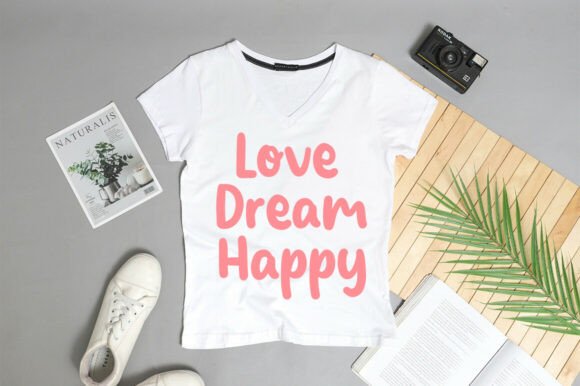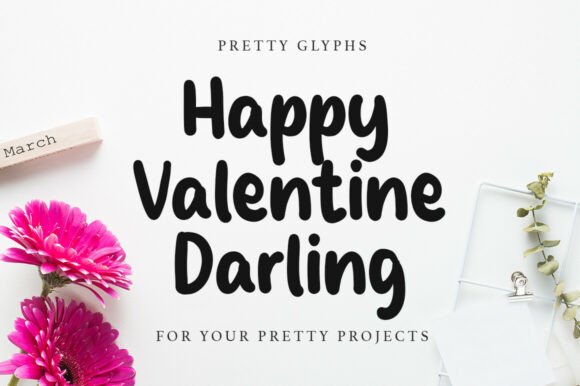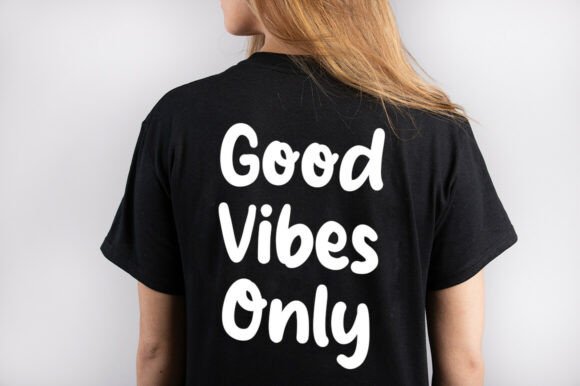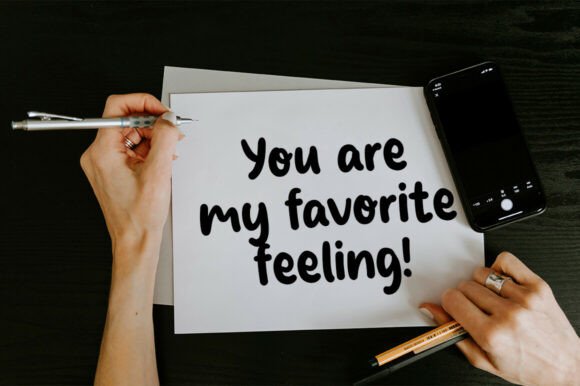
Introduction to Honey Dreams Font
Have you ever stared at a blank canvas, waiting for inspiration to strike? The blank page can be intimidating, but what if you had the perfect tool to bring your creative vision to life? For designers, the right font can make all the difference in adding character and personality to a project. That’s where the Honey Dreams Font comes in – a beautiful, handwritten brush font that’s sure to captivate your audience.
With its natural brush strokes and organic textures, the Honey Dreams Font is the perfect design resource for creatives who want to add a touch of warmth and energy to their work. Whether you’re working on a personal project or a commercial campaign, this font is sure to stand out. And the best part? It’s available for free download, so you can experiment with it without breaking the bank.
From logos to social media graphics, the Honey Dreams Font is a high-quality addition to any design arsenal. Its transparent background makes it easy to layer over other design elements, giving you endless possibilities for creative expression. So why settle for a generic font when you can have a font that truly speaks to your unique style? Get ready to unleash your creativity with the Honey Dreams Font.
Key Features of Honey Dreams Font
- High-quality, unique design perfect for creative projects requiring a touch of sweetness and whimsy.
- Features a transparent background, making it ideal for use on light-colored backgrounds or as a layer in design compositions.
- Includes a wide range of characters, including uppercase and lowercase letters, numbers, and special symbols.
- Designed to be highly legible, even at small font sizes, making it suitable for use in various design contexts.
Honest Review: Honey Dreams Font
I recently had the chance to work with the Honey Dreams Font, and I must say it’s been a delightful addition to my design toolkit. This font has a certain whimsical charm that’s perfect for creative projects that need a touch of sweetness.
- ✨ High-quality design: The Honey Dreams Font is beautifully crafted with smooth lines and a consistent aesthetic.
- ✨ Versatility: This font is suitable for a wide range of design projects, from invitations to editorial content.
- ⚠️ Limited character set: The font only includes a limited set of characters, which may not be ideal for longer texts or complex projects.
- ⚠️ No transparent background: The font’s design doesn’t lend itself well to transparent backgrounds, which may limit its use in certain design applications.
Overall, I’m quite impressed with the Honey Dreams Font. While it may have some limitations, its unique design and free download make it a valuable resource for designers looking to add a touch of whimsy to their creative projects.
To get the most out of Honey Dreams Font, use it in creative projects that require a high-end, premium look. This font is particularly well-suited for wedding invitations, branding materials, and advertising campaigns. Experiment with different font sizes and colors to add visual interest to your designs.